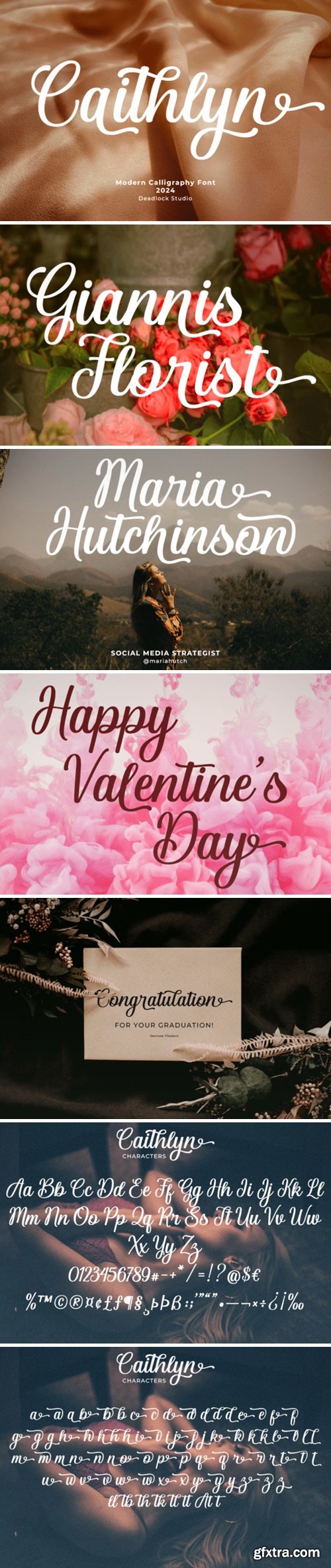
卡瑟琳字体
Caithlyn is a modern calligraphy font featuring soft curves and lines that lend a delicate and realistic appearance to the characters. With a total of 305 characters, Caithlyn is well-suited for various design projects, including invitation cards, product logos, food brands, and more. Caithlyn comes equipped with ligatures, Stylistic Sets 1-5, and Stylistic Alternates, offering you the tools to achieve beautiful styles and enhance your own creative expressions.